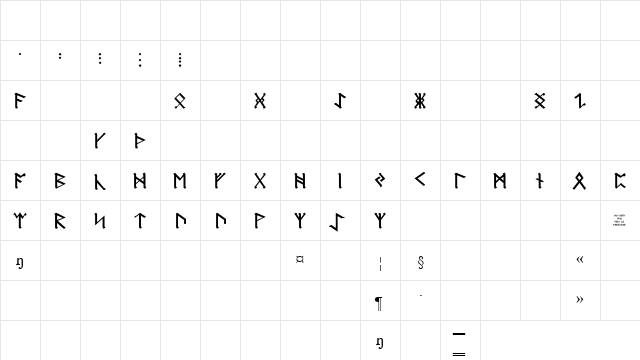
Icelandic Runes Normal
Design Context for Icelandic Runes Typeface
Icelandic Runes takes a measured approach to typography — its balanced proportions and neutral character make it a reliable workhorse for both digital and print work.